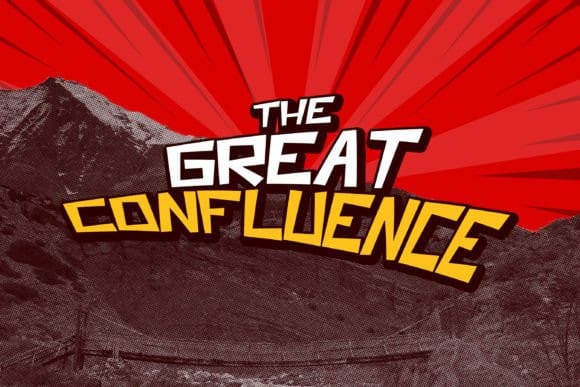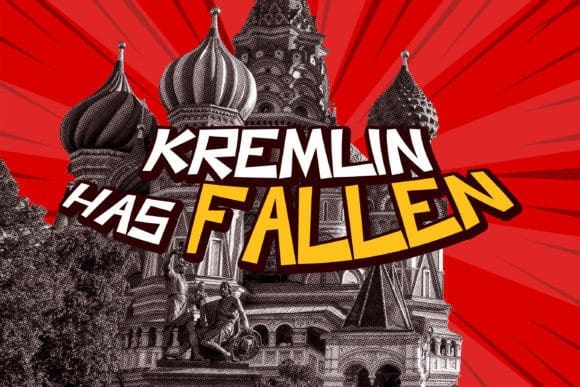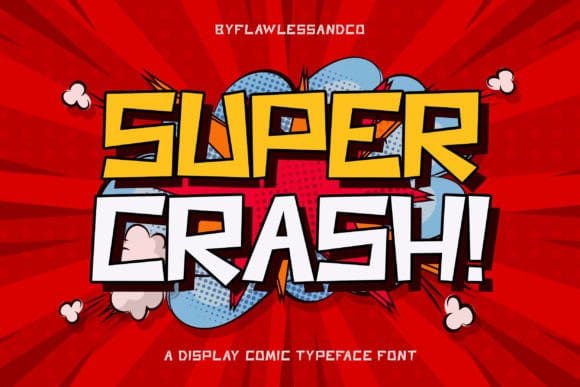
Super Crash Font
Super Crash Font is an incredibly cool and unique display font. It has a modern yet whimsical style and it will undoubtedly immerse your designs into a magical world.